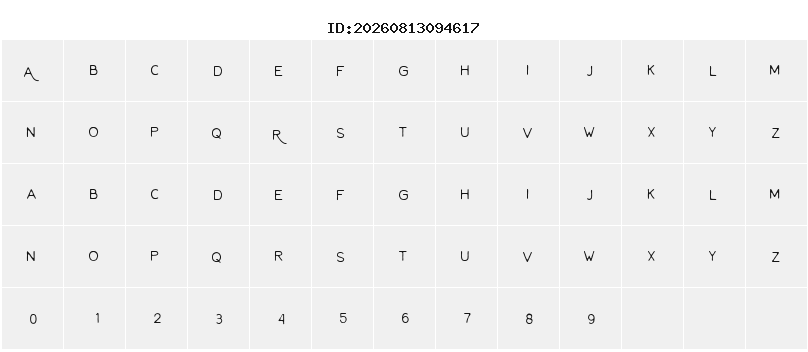
• Font Name: Reislust
• Designer: ihsan habib
Reislust.ttf is a modern, elegant sans-serif font designed for ultimate readability and visual harmony. Perfect for branding, headlines, web design, and print materials.